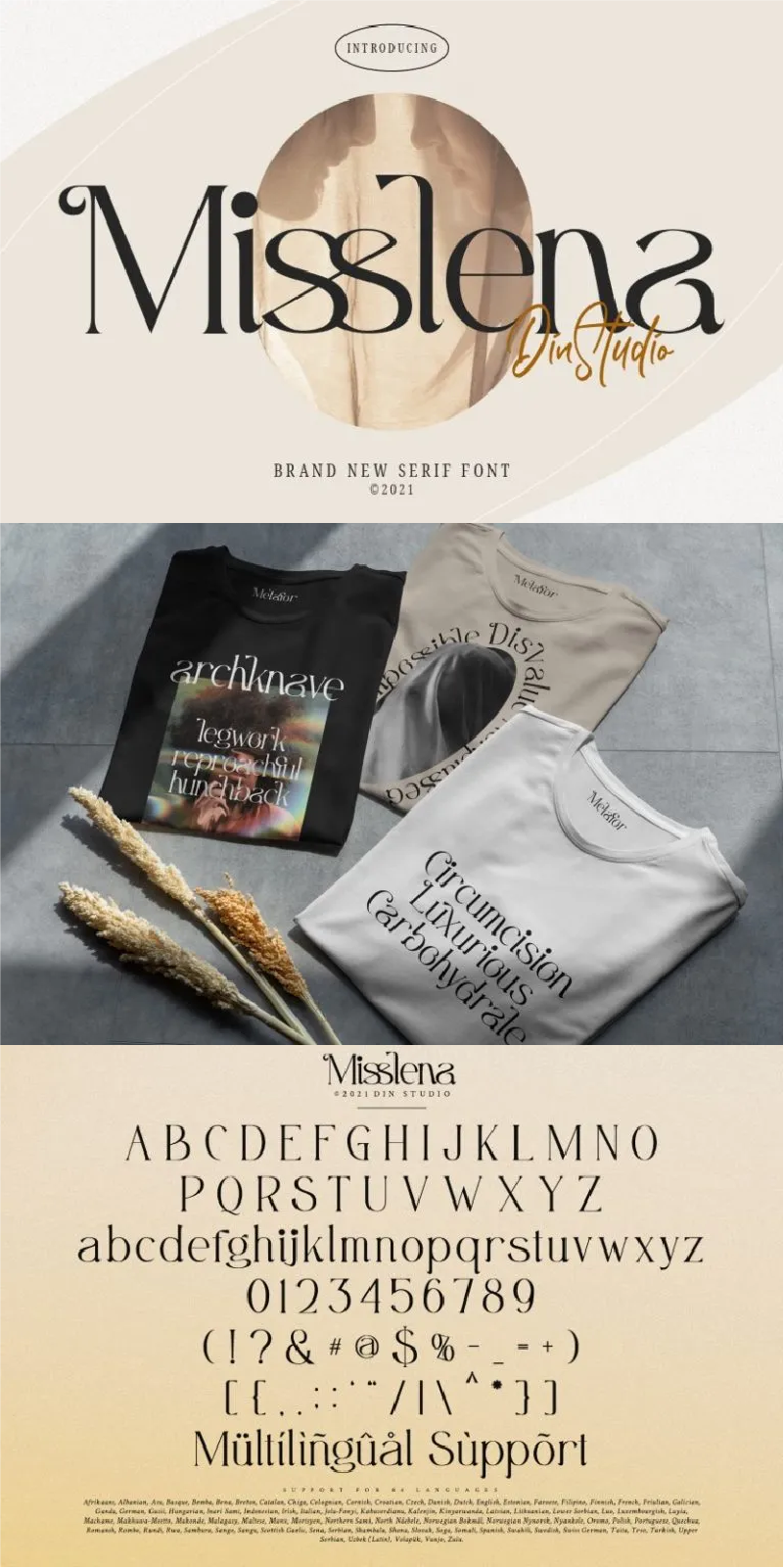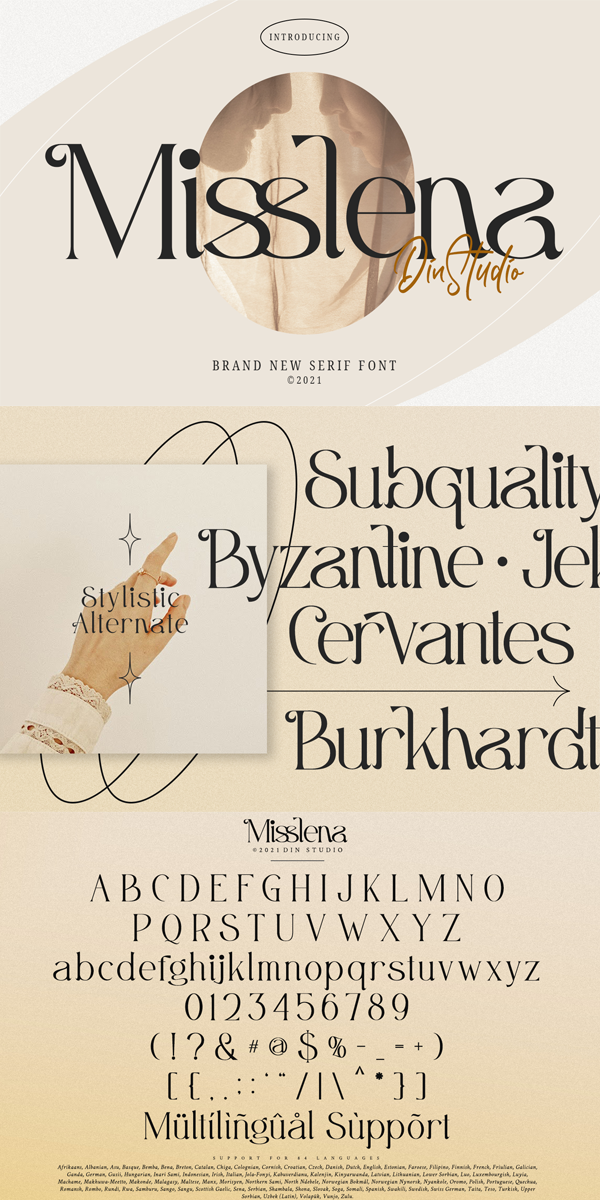
Misslena Font
About Misslena
A Serif Font: Misslena.
One of the most elegant, exquisite yet strong fonts. Misslena is made to bring out a modern and stylish view of what you make. This font contains upper & lowercase characters, all Punctuations, and numerals. Also Features include: ligatures and alternates characters to help the text flow naturally and add a custom-made feel. Its lighter weights are well-suited for body text. The available stylistic alternates offer a number of different characters that give your logo or business card a unique look.
The font includes Multilingual Supports to make your branding reach a global audience. Inspire your audience, clients, or guests with this beautiful, statement font. See the previews above to get some inspiration on how you can use them.